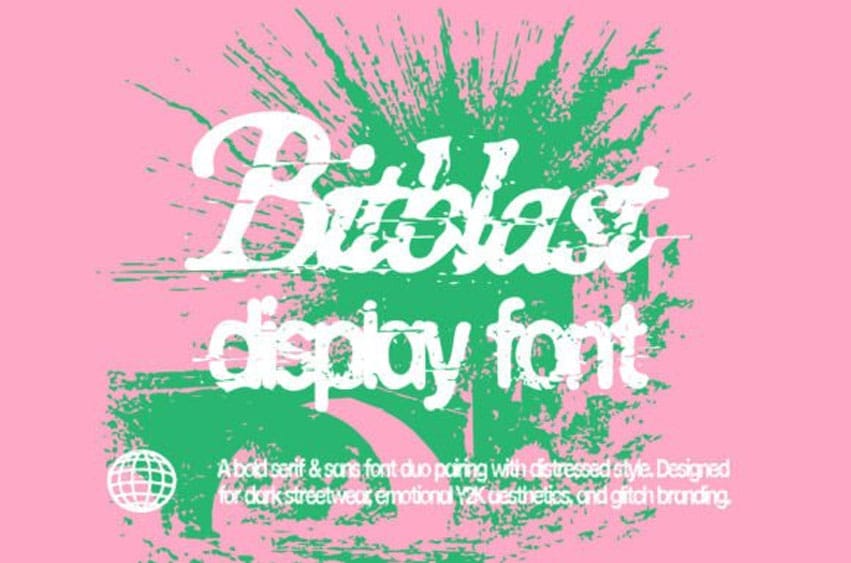
Bitblastserif Regular Font is a bold serif and sans font duo characterized by its raw, distressed aesthetic. Engineered for high-impact visuals, it merges gothic-infused serif details with a condensed sans structure that conveys a futuristic, subversive tone.
Ideal for dark streetwear, Y2K-inspired design, and glitch-themed branding, Bitblast delivers a distinctive edge suited for logos, apparel, posters, and identity systems demanding strong visual presence.